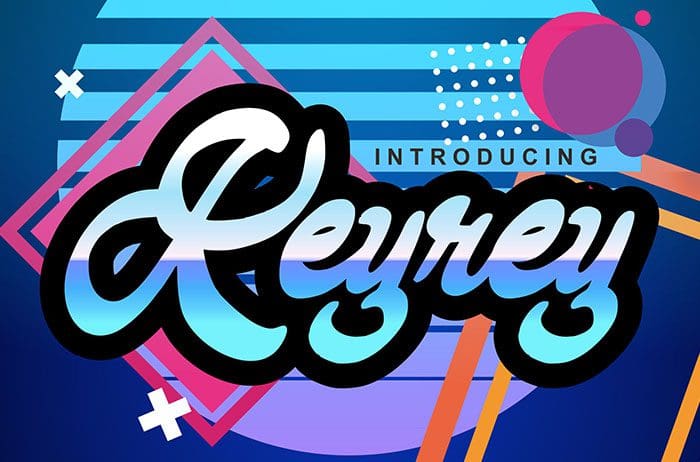
Keyrey Script Font
Keyrey is a funky and cool script font with a bold feel. Keyrey perfect for product packaging, header, poster, merchandise, social media, and more. Get groovy with this extraordinary font. Thanks to Vunira Studio for sharing this font. Take a look at this portfolio for more of his stunning fonts.